Questions for Font Creators Part 4: Favorite Katakana Glyph
The question “What is your favorite katakana glyph?” was asked to staff at the Type Project. Their answers are given below.
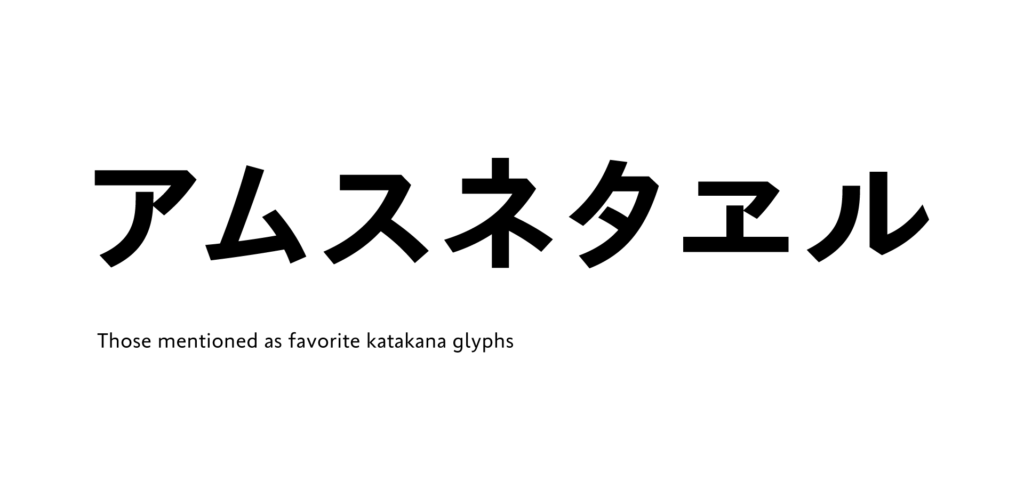
- “ア”:
There is balance between the straight line and curved line.
- “ム”:
I like the firmly tight shape.
- “ス” and “ネ”:
“ス” and “ネ” in Tsukiji-tai No.5 and Iwata Mincho Old are crushed with a long and sharp left sweep, and this looks stylish.
- “タ”:
The shape has a feeling of sharpness.
- “ヱ”:
I like the intensity showing nostalgia with just this one character.
As mentioned above, some mentioned the sharp shapes and stylishness peculiar to katakana for their reasons. On the other hand, there were answers such as, “I don’t like it too much. I have no preferences” as follows:
- “ア” and “ル”:
I feel that the shape of katakana in the type face space is not organic, if it is square, in comparison to the other glyphs. For that reason, it is both difficult to balance and show attractiveness. So I don’t really like to look at it or create it. Nevertheless, I’m okay with the glyphs “ア” and “ル,” as these two characters have stability.
- “ア”:
Because katakana overall has a hard and inorganic impression, I don’t like it so much. If I have to choose my favorite, I choose “ア,” as the curved line and straight line are well-balanced.
- “ア”:
I cannot really think of my favorite, but if I have to choose, this is the character.
- “ス”:
I don’t have too much of a preference, but I think I like this character, because I can write the sweep with a good feeling.
This is the third time asking the “favorite glyph,” following kanji and hiragana. I have a bit different impression from the answers at this time. Some of them don’t have much of a special feeling for katakana, compared to kanji and hiragana, because the shapes are simple and not so organic.
Even so, many of them choose “ア.” This may be the glyph with a well-balanced impression in particular out of all the katakana.